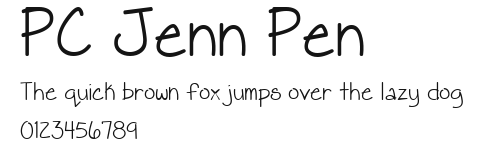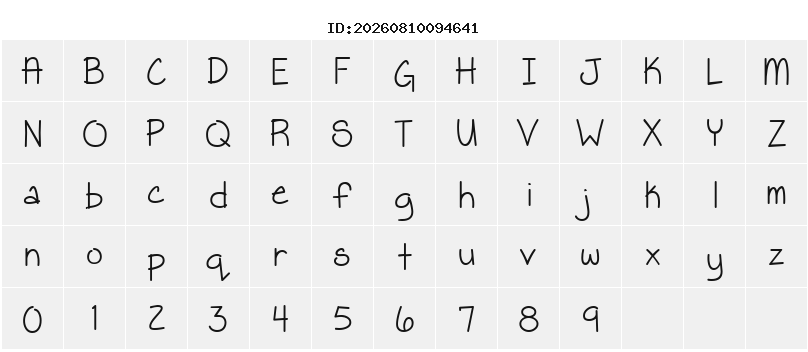
• Font Name: PC Jenn Pen
About PC Jenn Pen.ttf
PC Jenn Pen.ttf is a modern, elegant sans-serif font designed for ultimate readability and visual harmony. Perfect for branding, headlines, web design, and print materials.